Antwerp's historic cultural venue updates its visual system.
De Roma is s hub known for its carefully curated programme of live music, originally revived in 2003 through the initiative of a small group of cultural organizers and hundreds of volunteers, the venue continues to operate through this strong collective spirit.
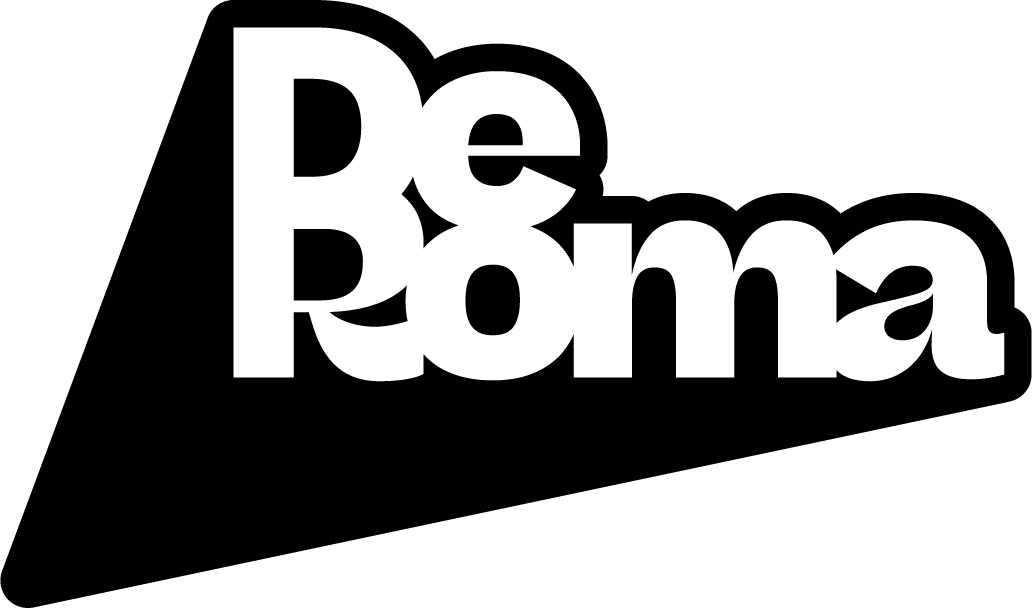
In 2024, designer Rob Marcelis developed a complete redesign of De Roma’s logo and visual identity, updating the system to better reflect the venue’s contemporary programming and its increasingly digital communication channels.
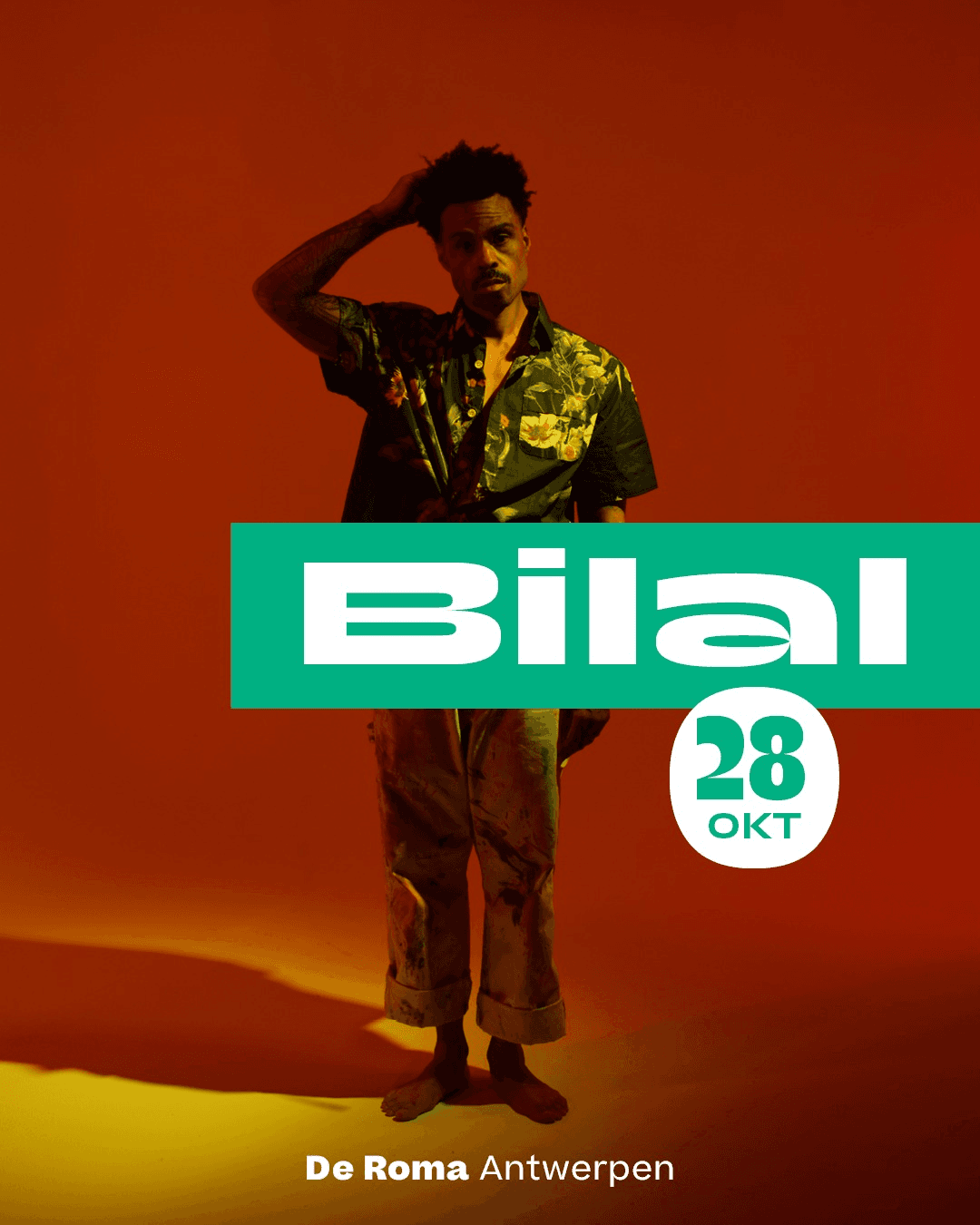
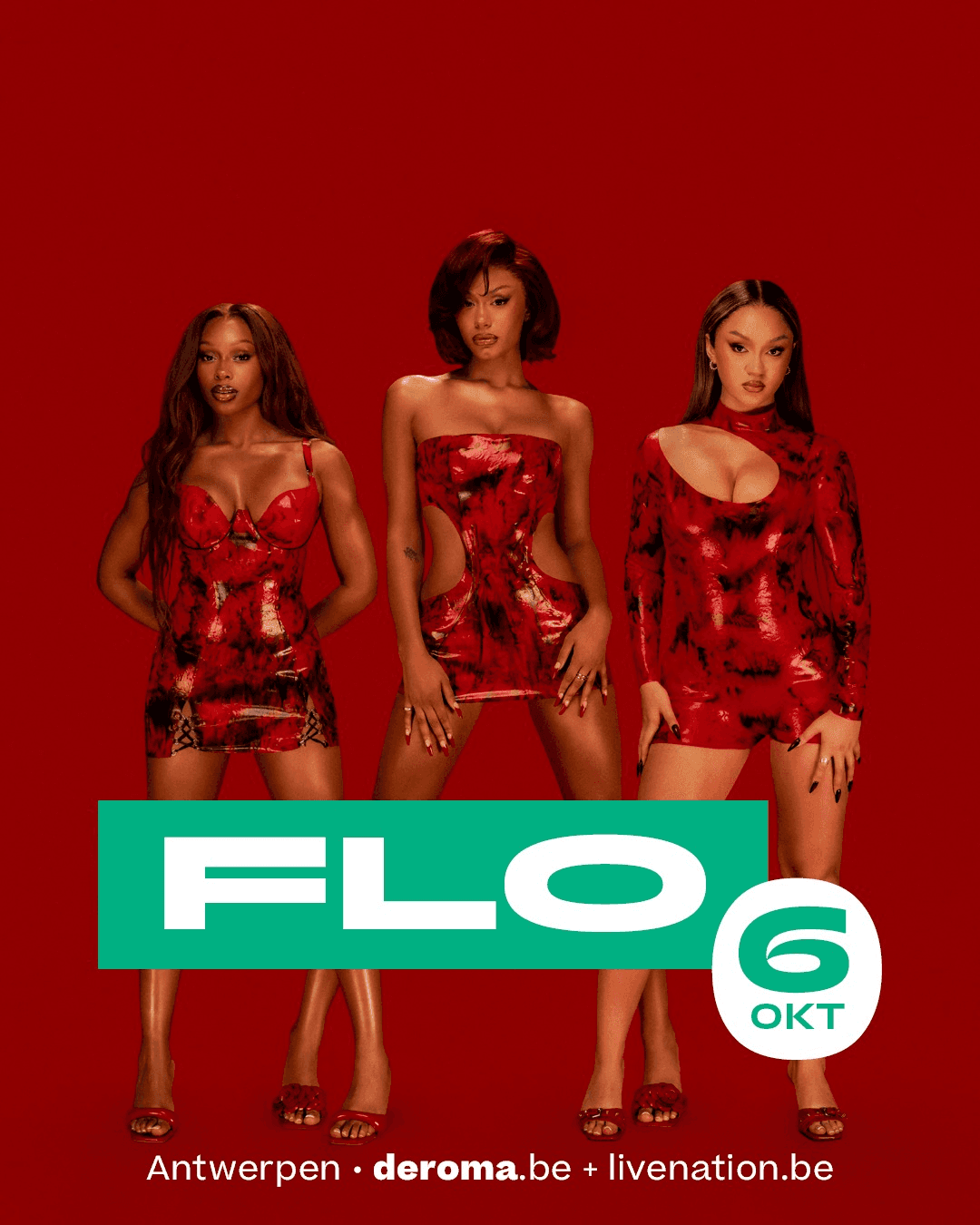
The venue’s logo itself is based on a modified version of Beatrice Deck, the high-contrast flagship style of the Beatrice superfamily designed by Lucas Sharp with Connor Davenport and released through Sharp Type.
The wider visual identity relies on Trois Mille. First introduced in 2016 as Marc Rouault’s TypeMedia thesis project and later distributed through Sharp Type. Trois Mille draws inspiration from typographic master Roger Excoffon, the typeface combines dynamic forms with an expansive construction.
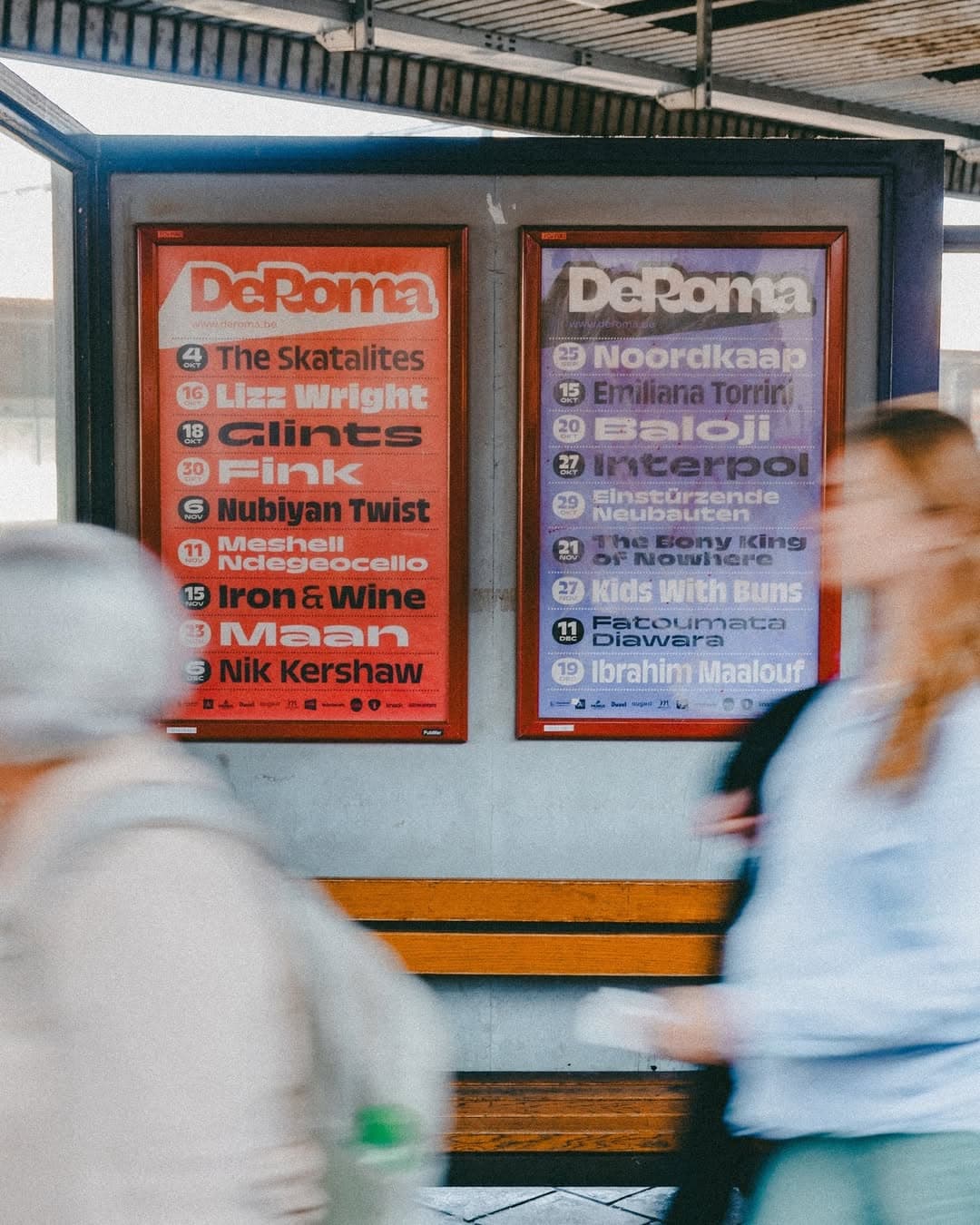
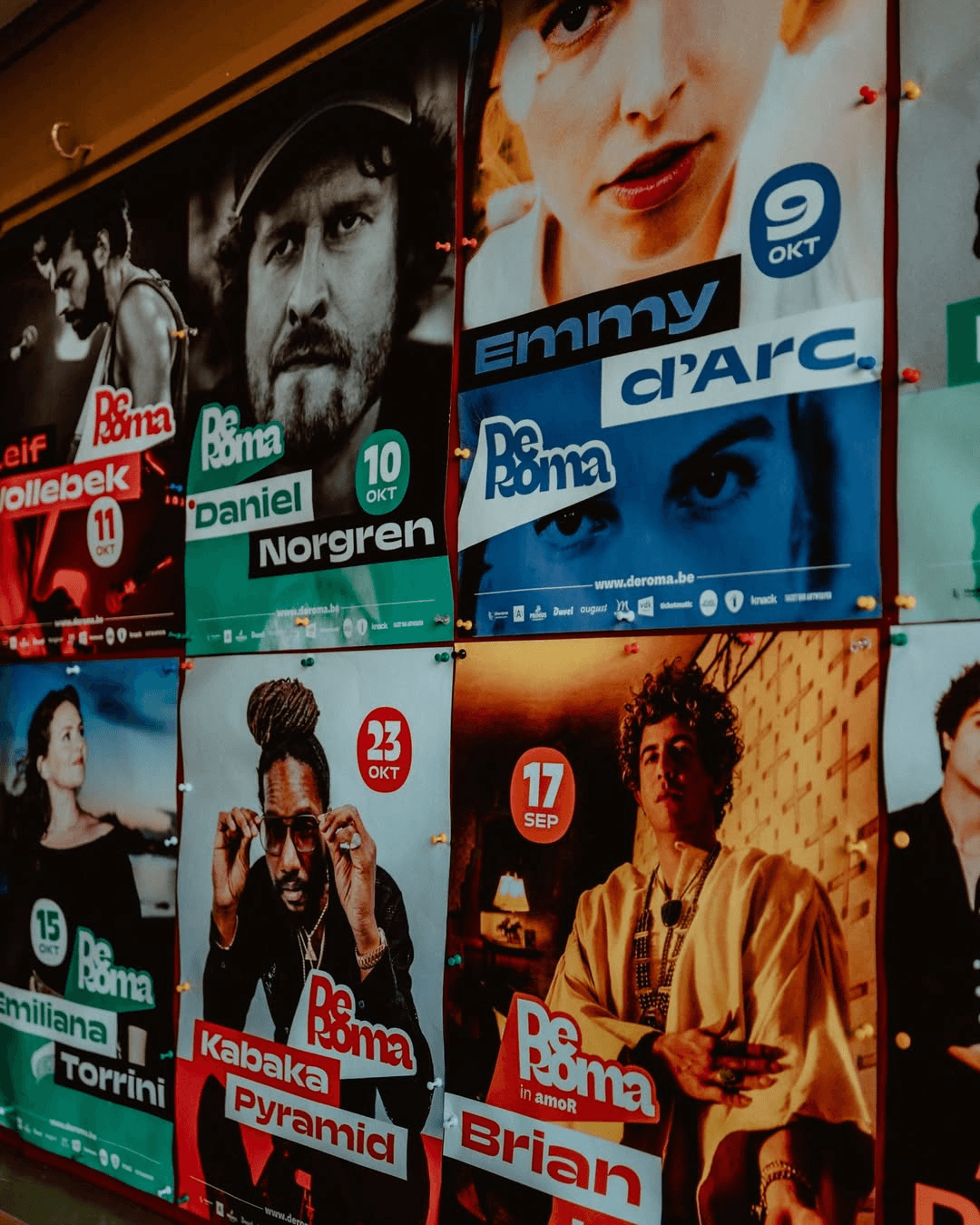
In De Roma’s communications — from posters to event announcements — Trois Mille provides a distinctive, energetic voice that balances expressiveness with clarity, demonstrating how a singular display typeface can anchor an entire cultural identity.